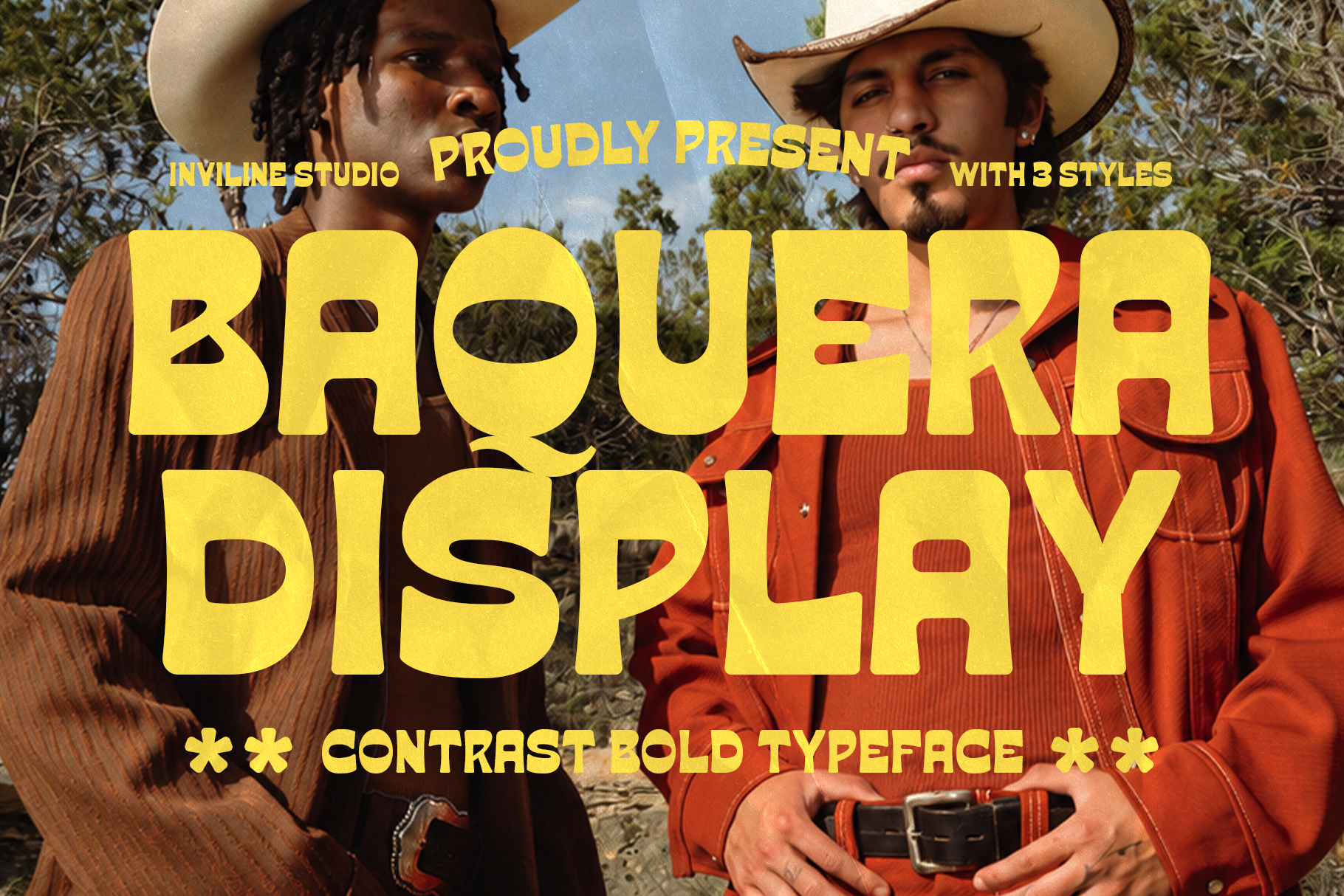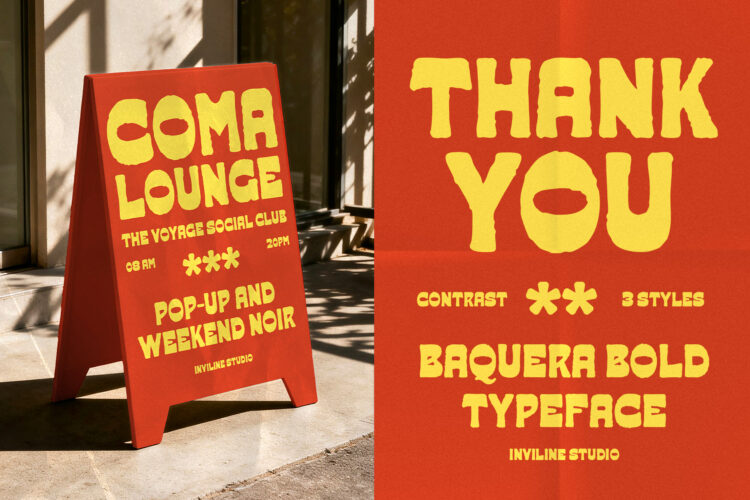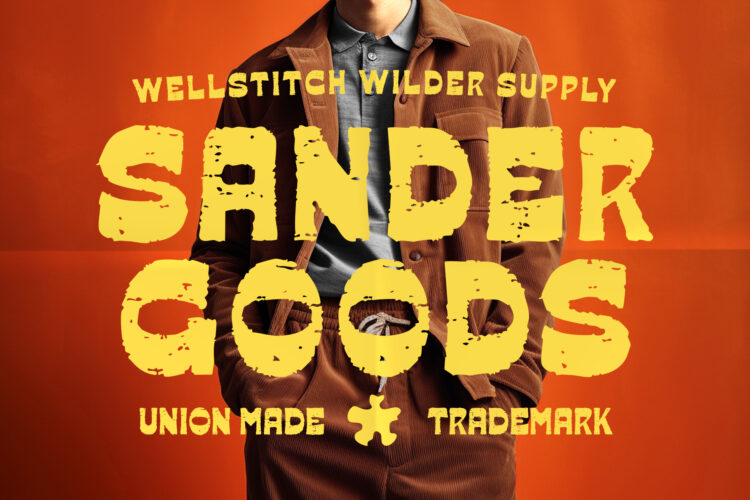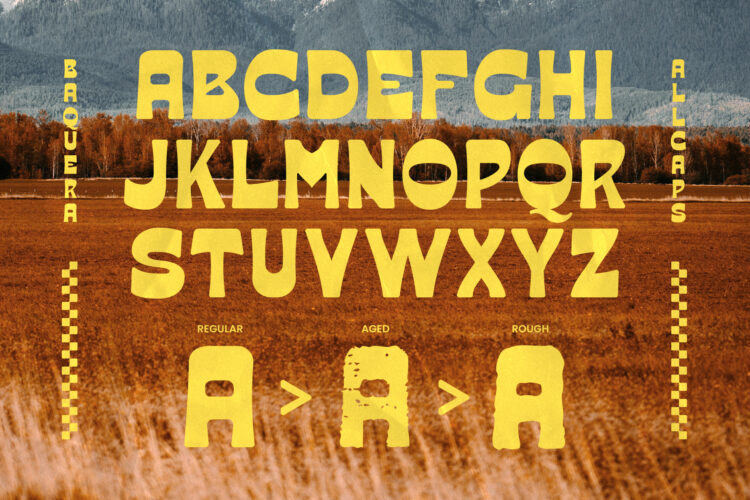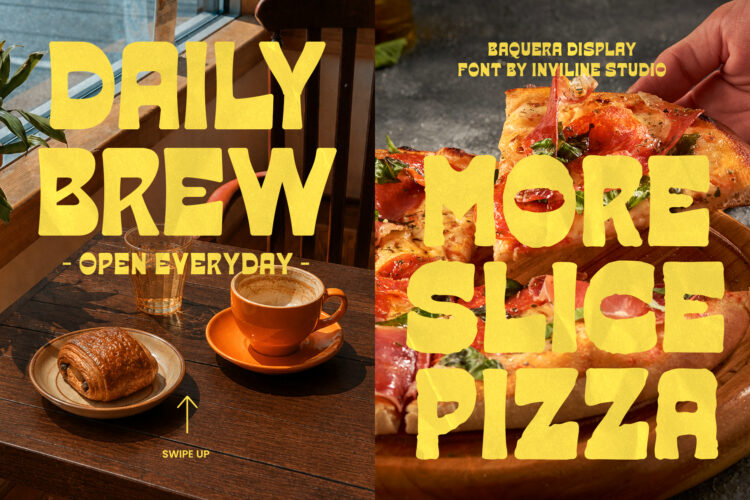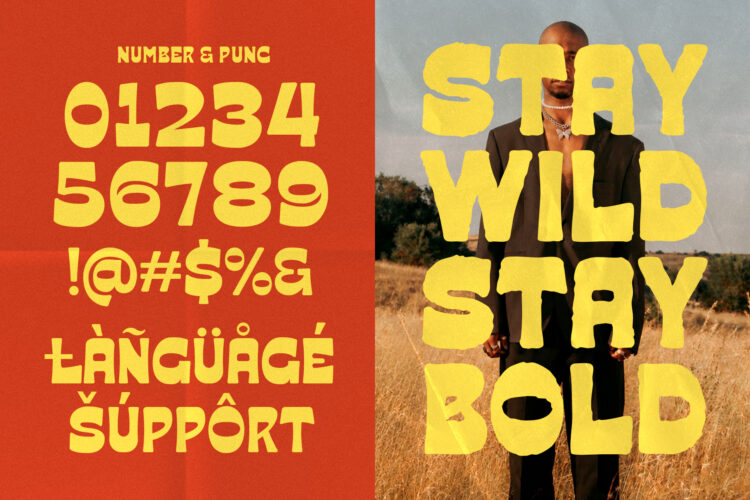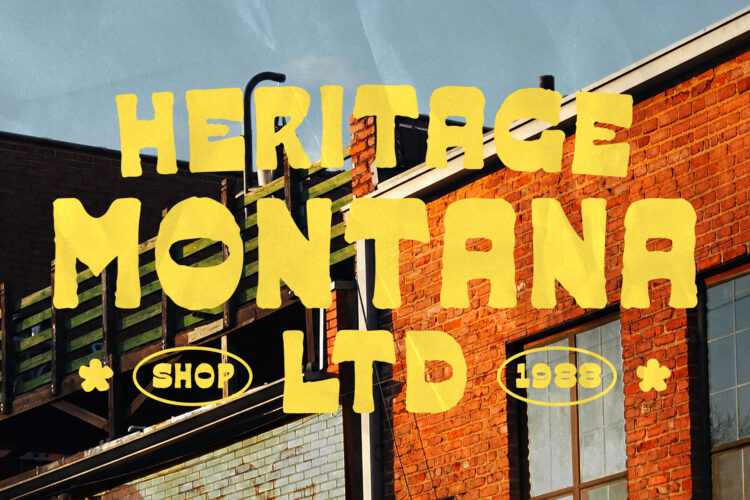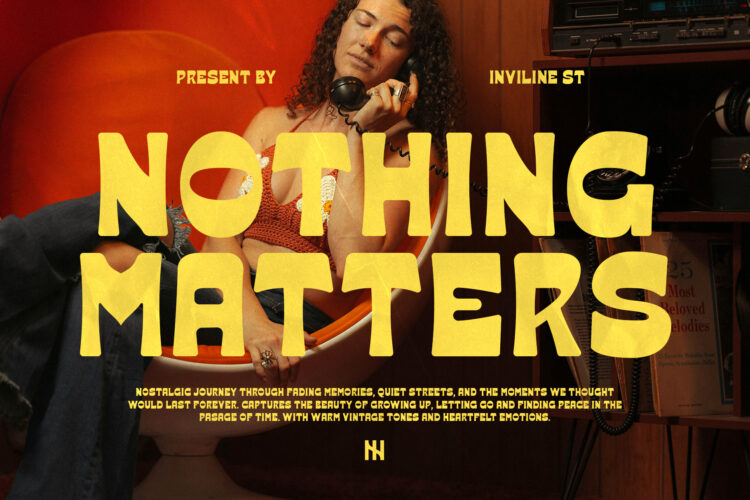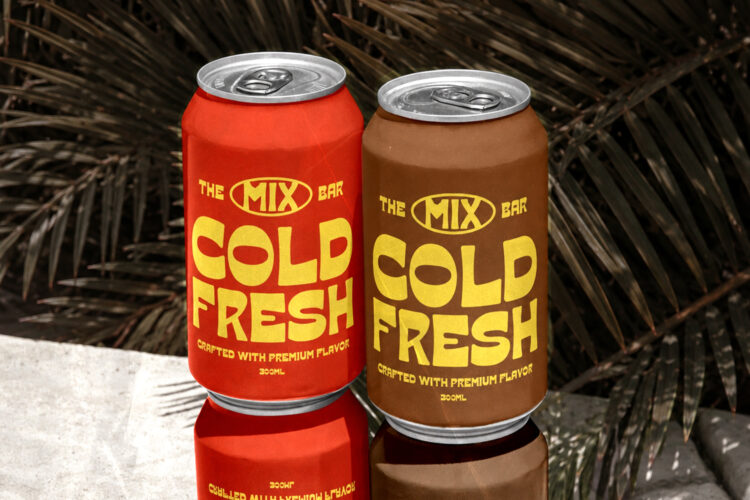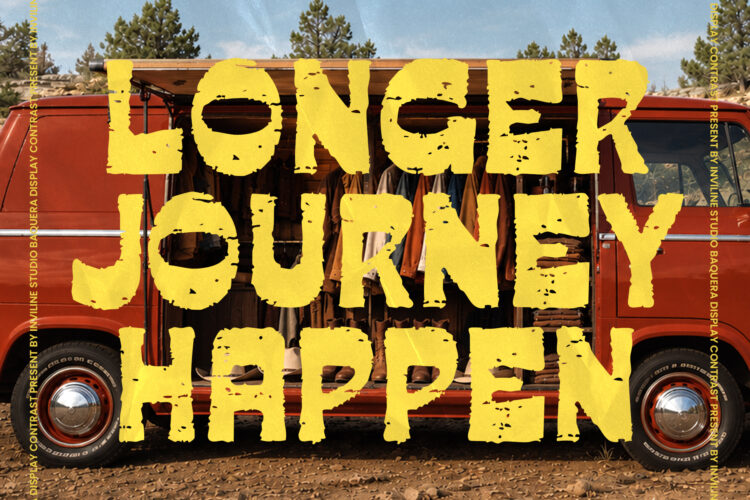
Baquera - Regular
Baquera - Aged
Baquera - Rough
Baquera is a bold display typeface inspired by vintage western graphics, retro signage, and rugged Americana aesthetics. Its chunky, irregular letterforms bring a strong and expressive character to modern designs.
Overview
A rugged display font with a nostalgic western feel. Baquera comes with multiple styles to create anything from clean vintage lettering to distressed, aged designs.
Key Features
• Bold display style
• Vintage western aesthetic
• Chunky organic letters
• Distressed & textured styles
• 3 Styles: Regular, Aged & Rough
• Stylistic Alternates: Multiple alternate letterforms
• Multilingual Support: Latin-based characters and accented letters
Baquera – Retro Display Font